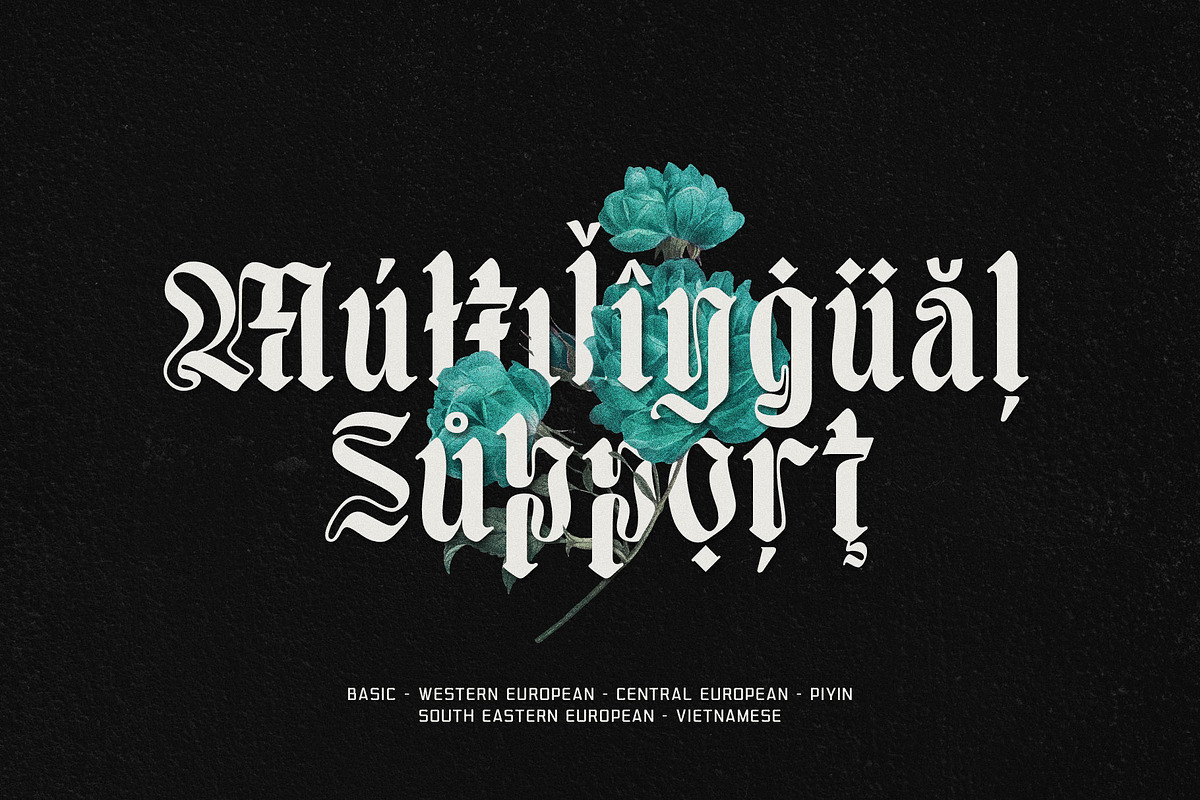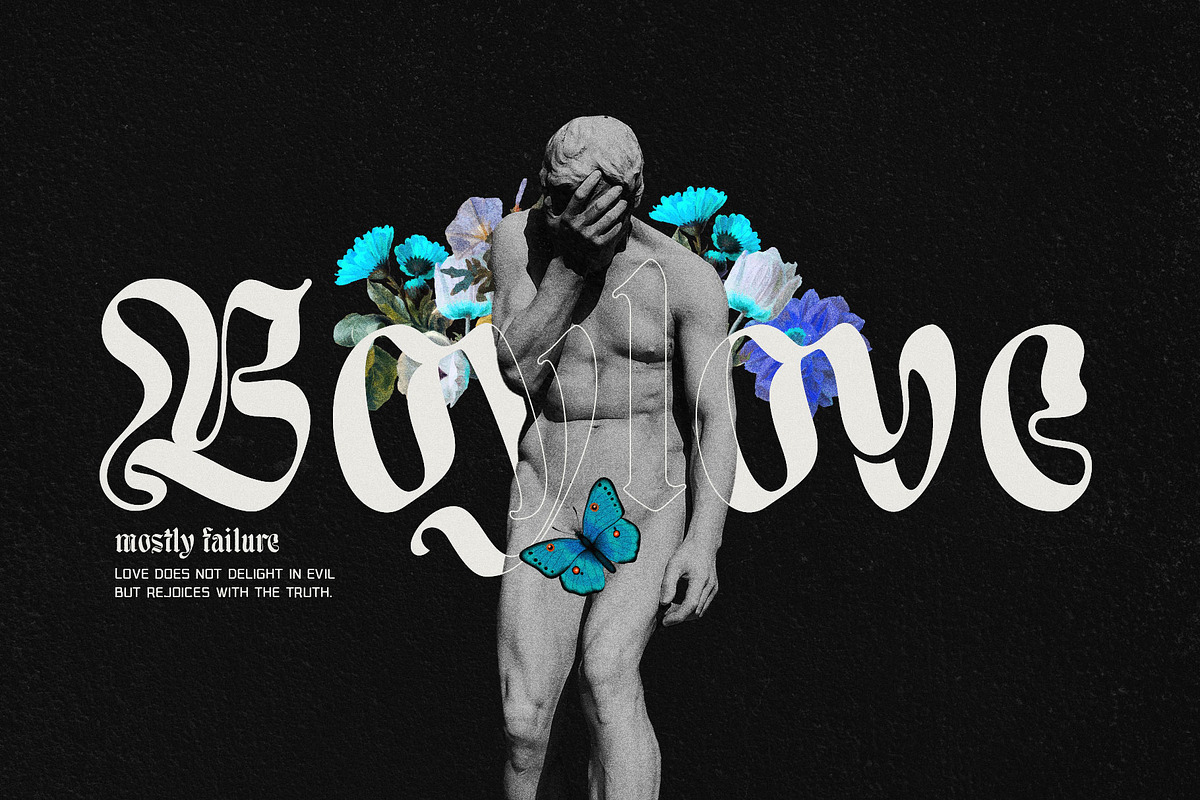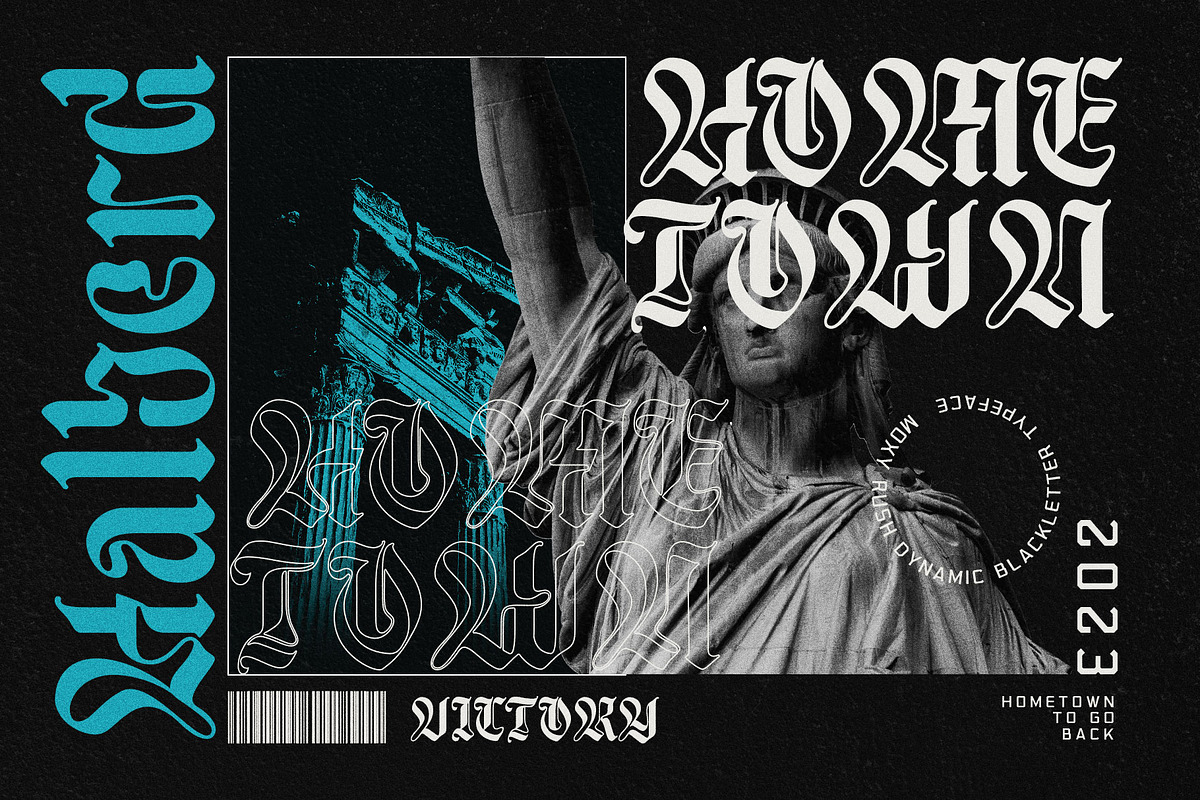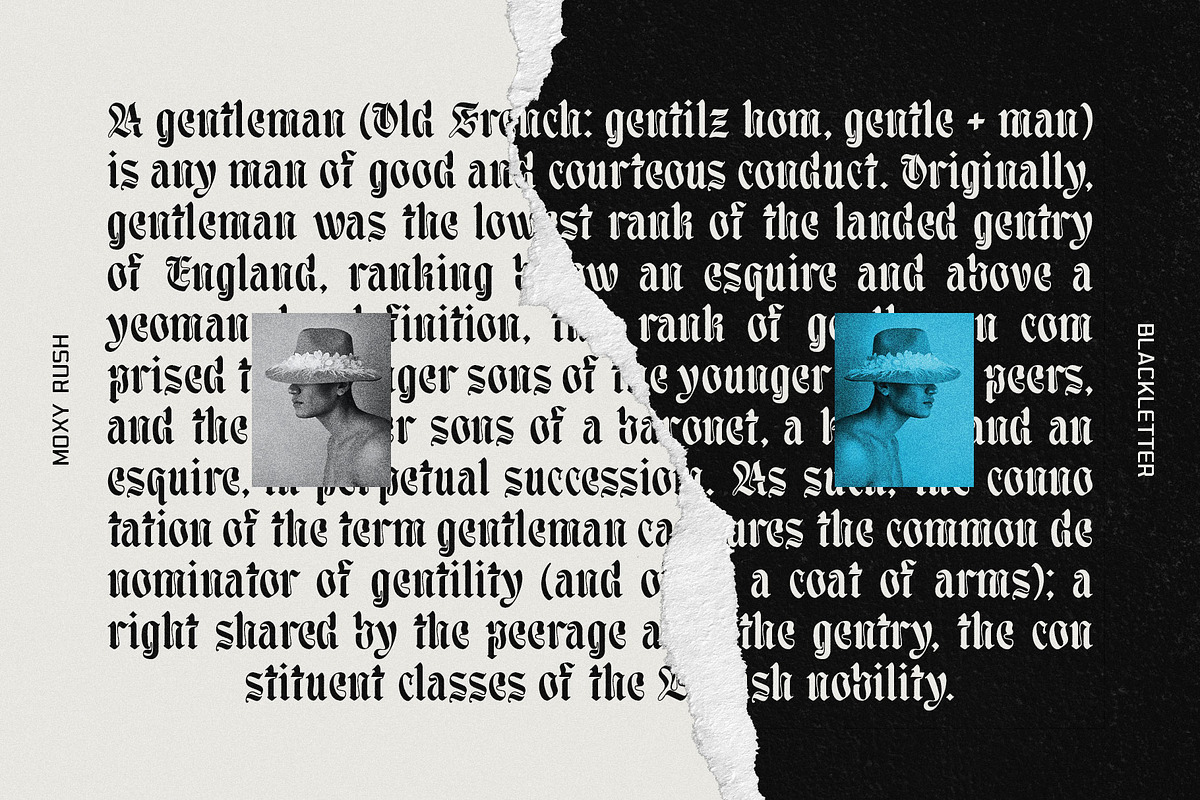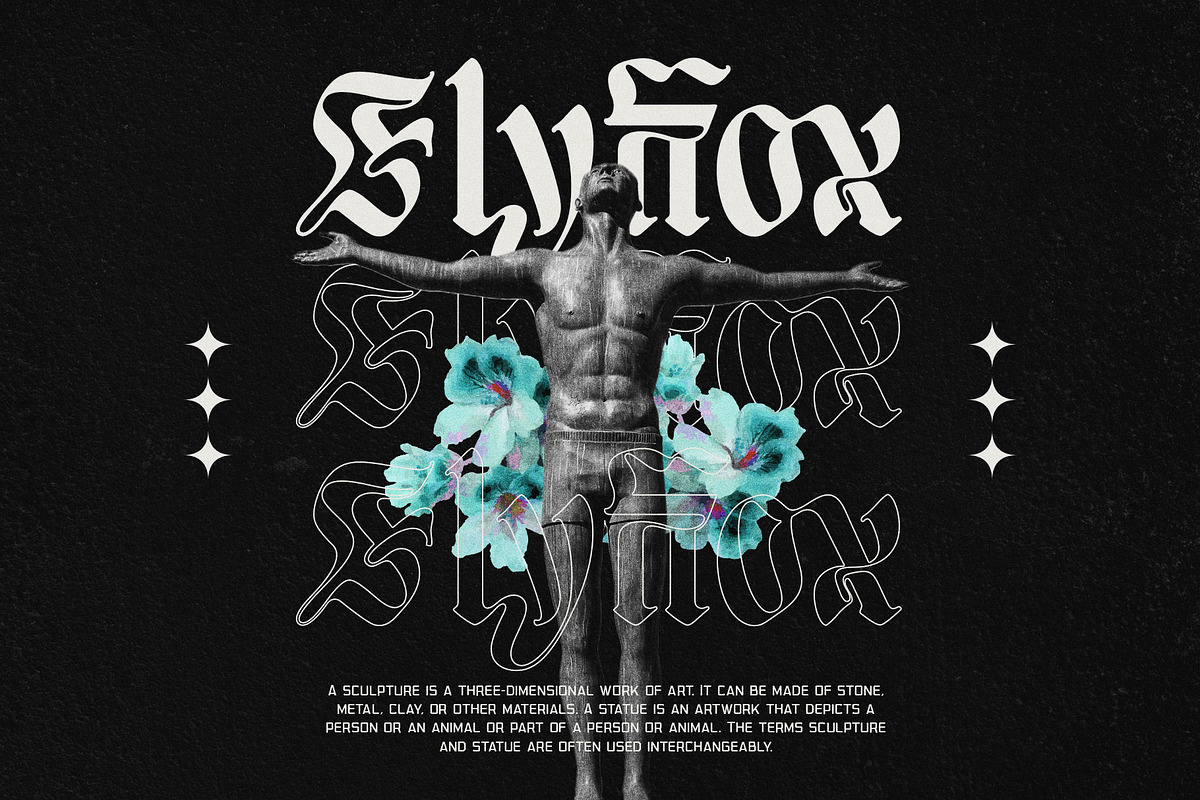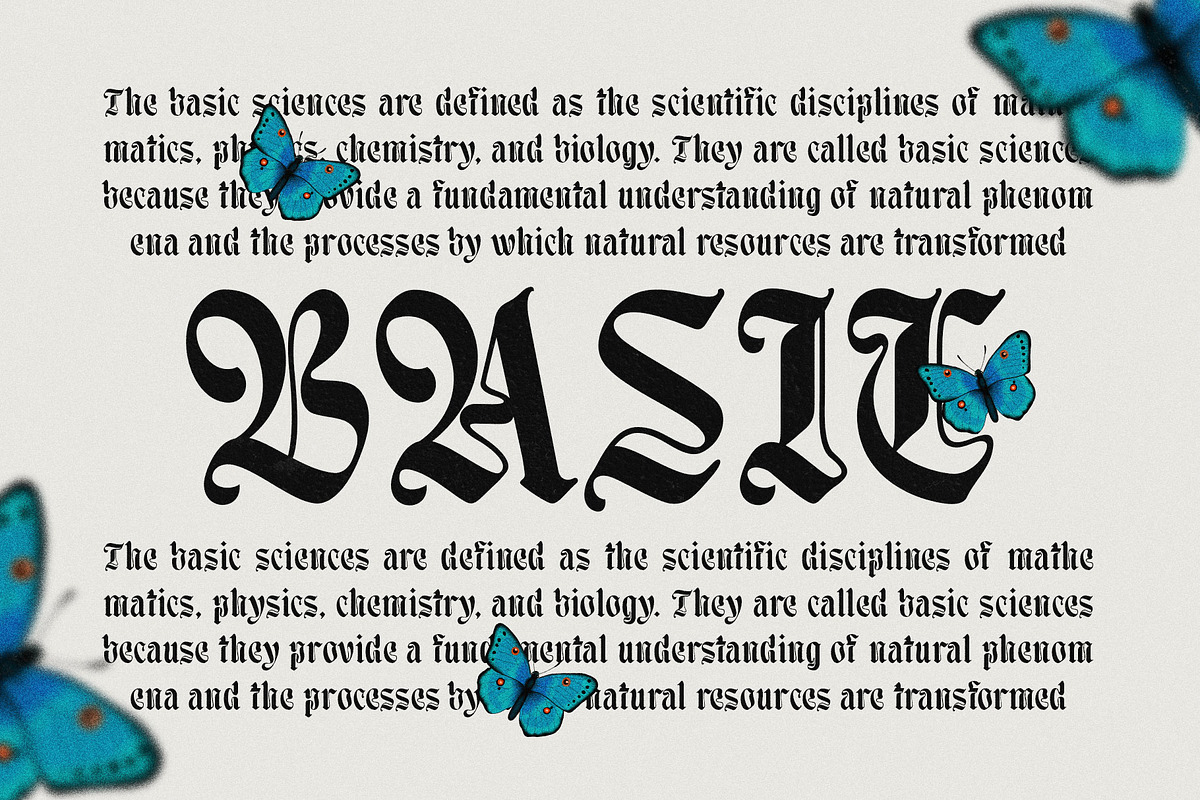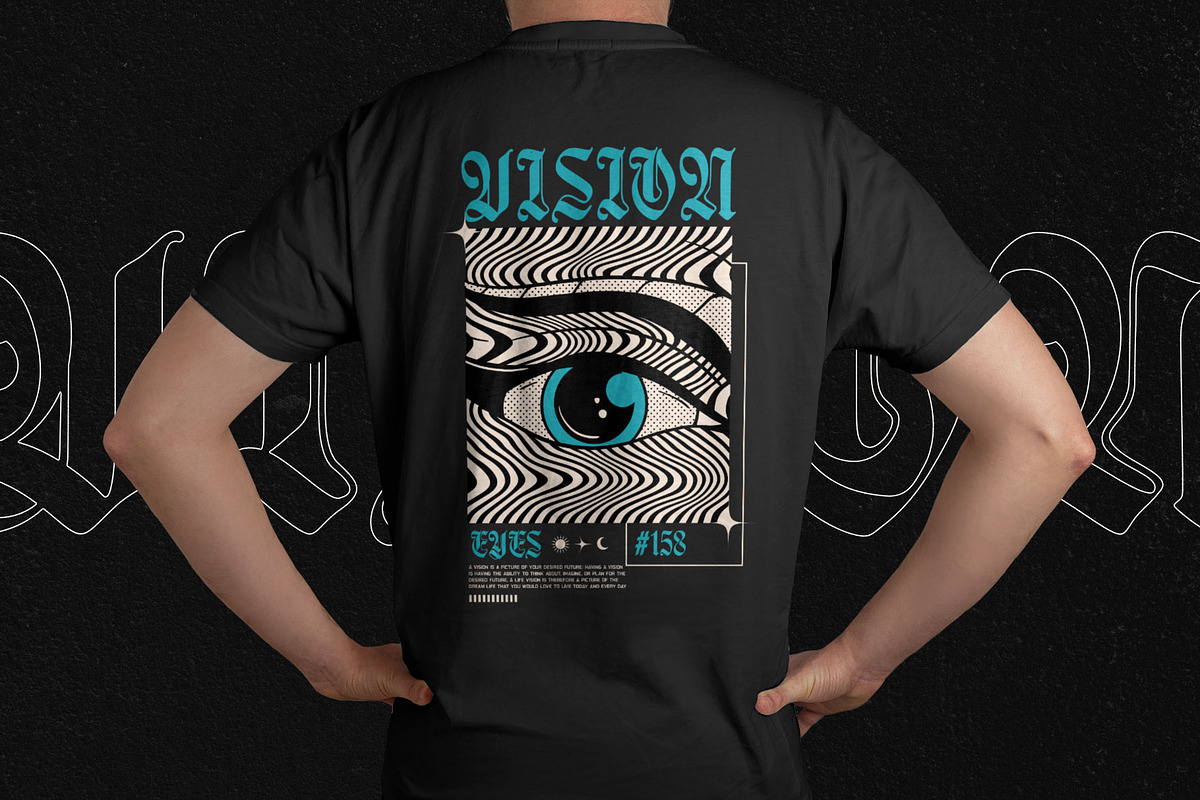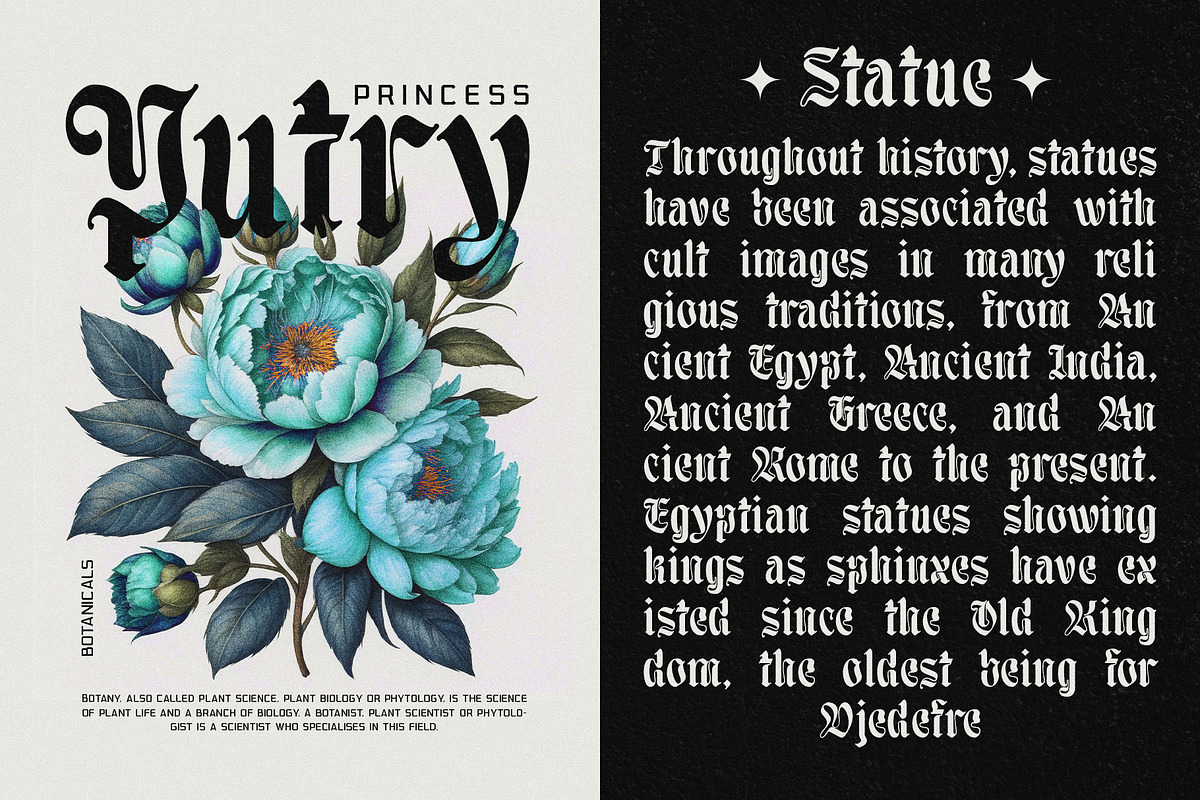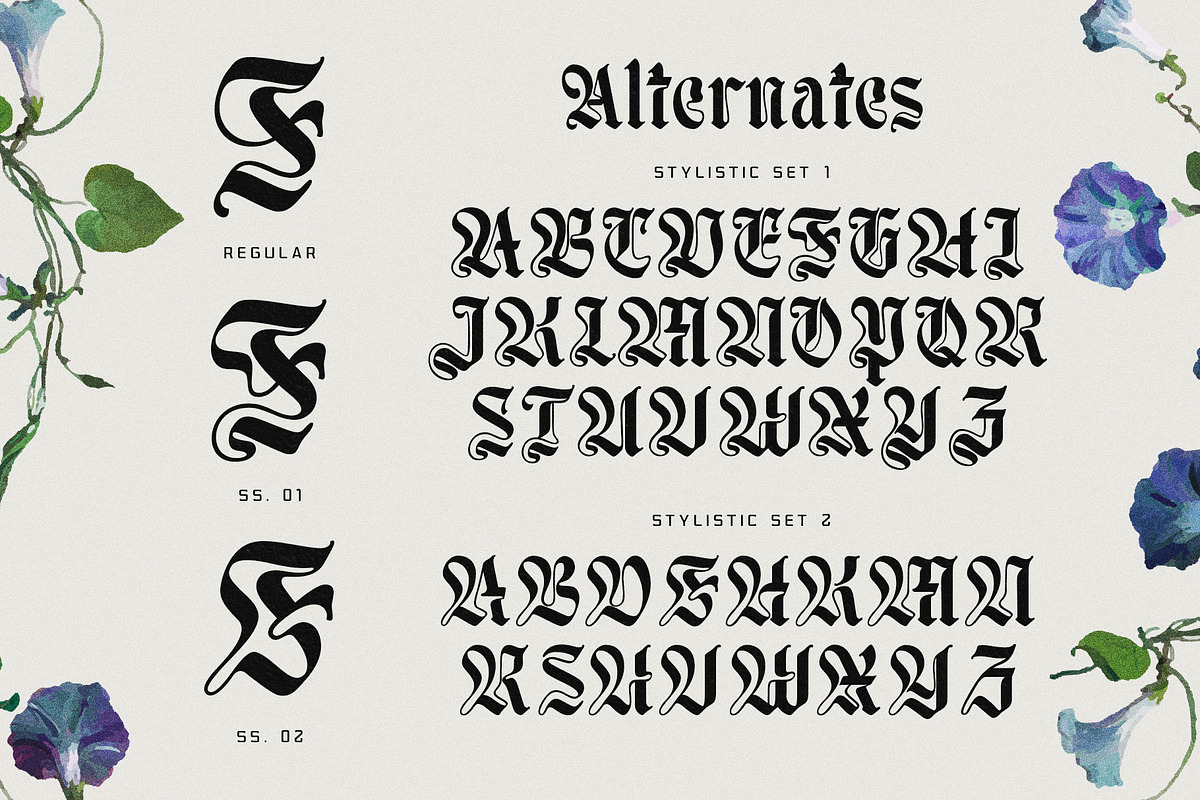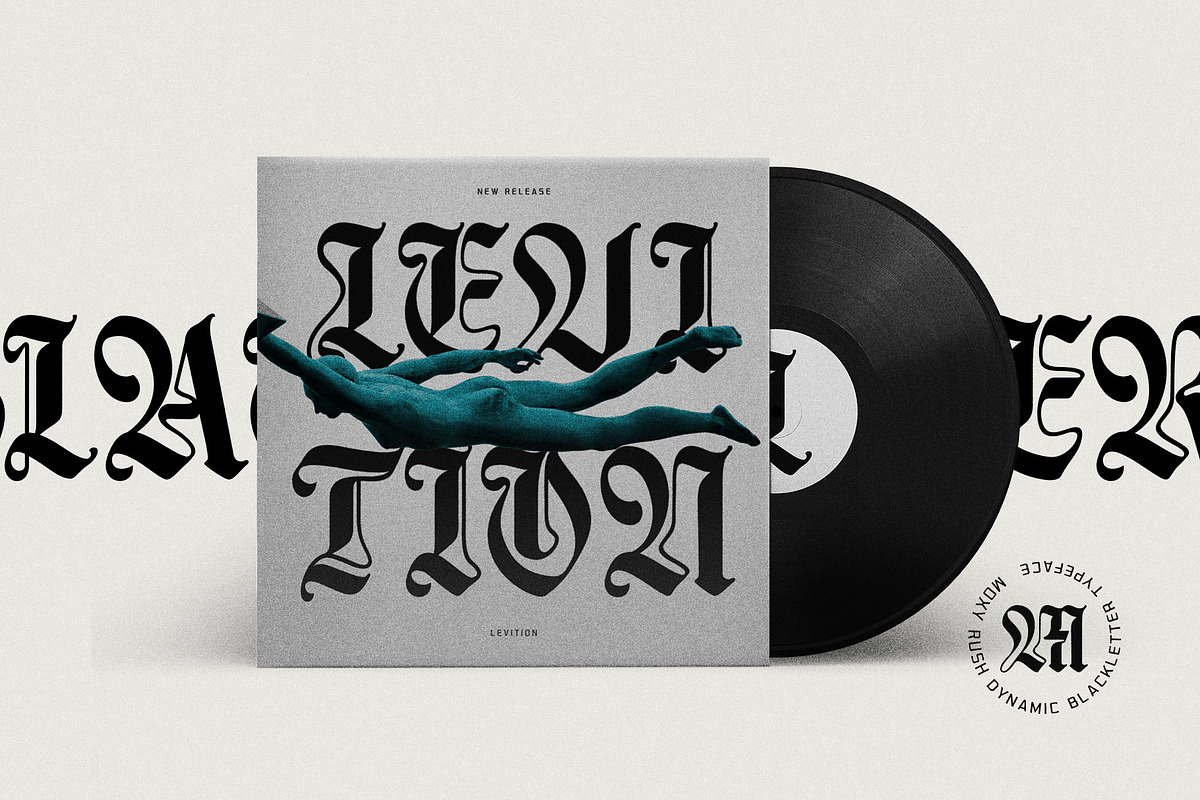
Moxy Rush Blackletter Typeface
Introducing "Moxy Rush" Font: Redefining Modern Blackletter Elegance
Unleash the power of typography with "Moxy Rush," a remarkable font that seamlessly blends the timeless essence of blackletter style with a captivating contemporary twist. This font is a true masterpiece, meticulously designed to elevate your designs, projects, and artworks to new heights of sophistication and creativity.
Dynamic Swaying Style: "Moxy Rush" is not your ordinary blackletter font. Its unique design boasts a dynamic swaying style that breathes life into your text. Every character exudes a sense of movement, adding a touch of excitement and energy to your compositions.
Innovative Alternates and Ligatures: Dive into a world of versatility with the extensive range of alternates and ligatures that "Moxy Rush" offers. Each letter comes with carefully crafted variations, enabling you to effortlessly achieve that perfect, customized look. Create stunning connections between characters with the included ligatures, fostering seamless flow and enhancing overall legibility.
Multilingual Support: Language should never be a barrier to creativity. "Moxy Rush" breaks down those barriers by providing comprehensive multilingual support. Express yourself flawlessly in various languages, ensuring your message reaches a global audience without compromising on style and elegance.
Endless Creative Possibilities: Whether you're working on branding, packaging, editorial design, or any creative project that demands a touch of distinction, "Moxy Rush" is your ultimate companion. Its bold presence commands attention while its modern twist piques curiosity, making it ideal for projects where you want to stand out and leave a lasting impression.
- Logos and Branding
- Editorial Headlines
- Poster Design
- Apparel and Merchandise
- Website Headings
- Event Invitations
- and more...
Elevate your designs with "Moxy Rush" and experience the fusion of classic blackletter charm with a contemporary edge. Unleash your creativity like never before and let "Moxy Rush" be the driving force behind your design journey.